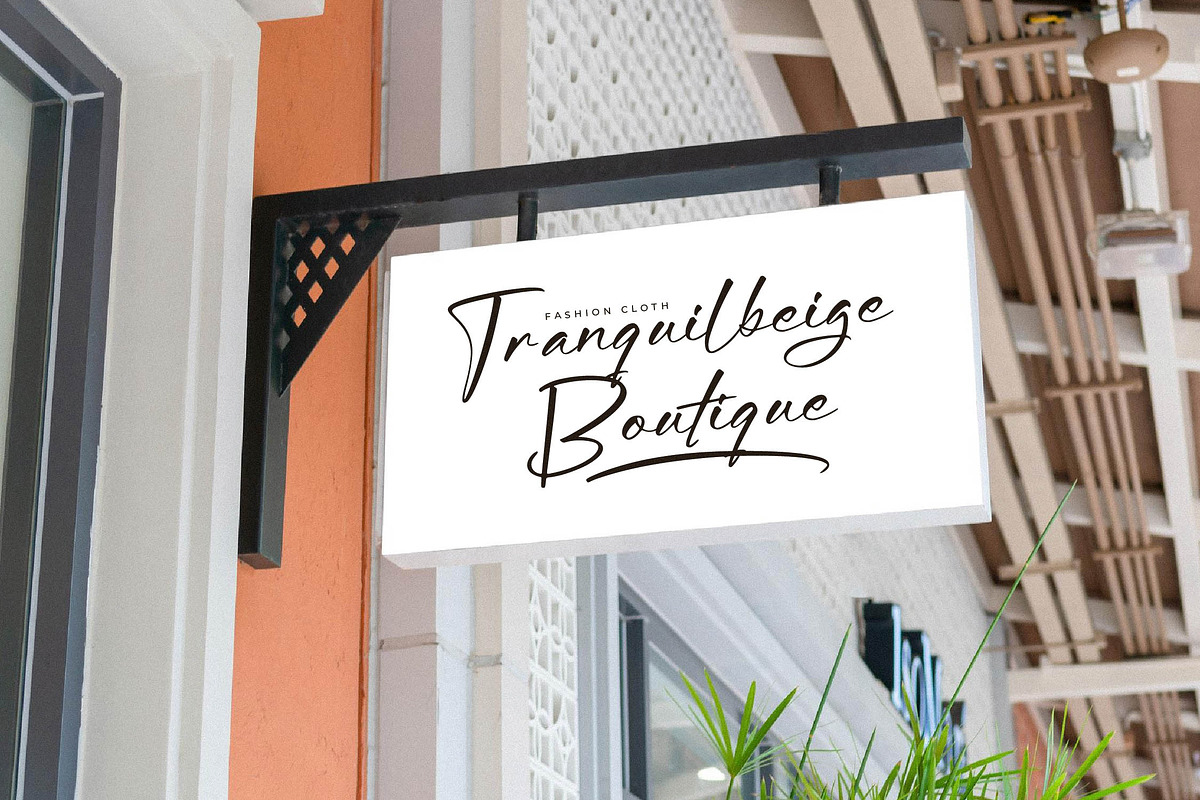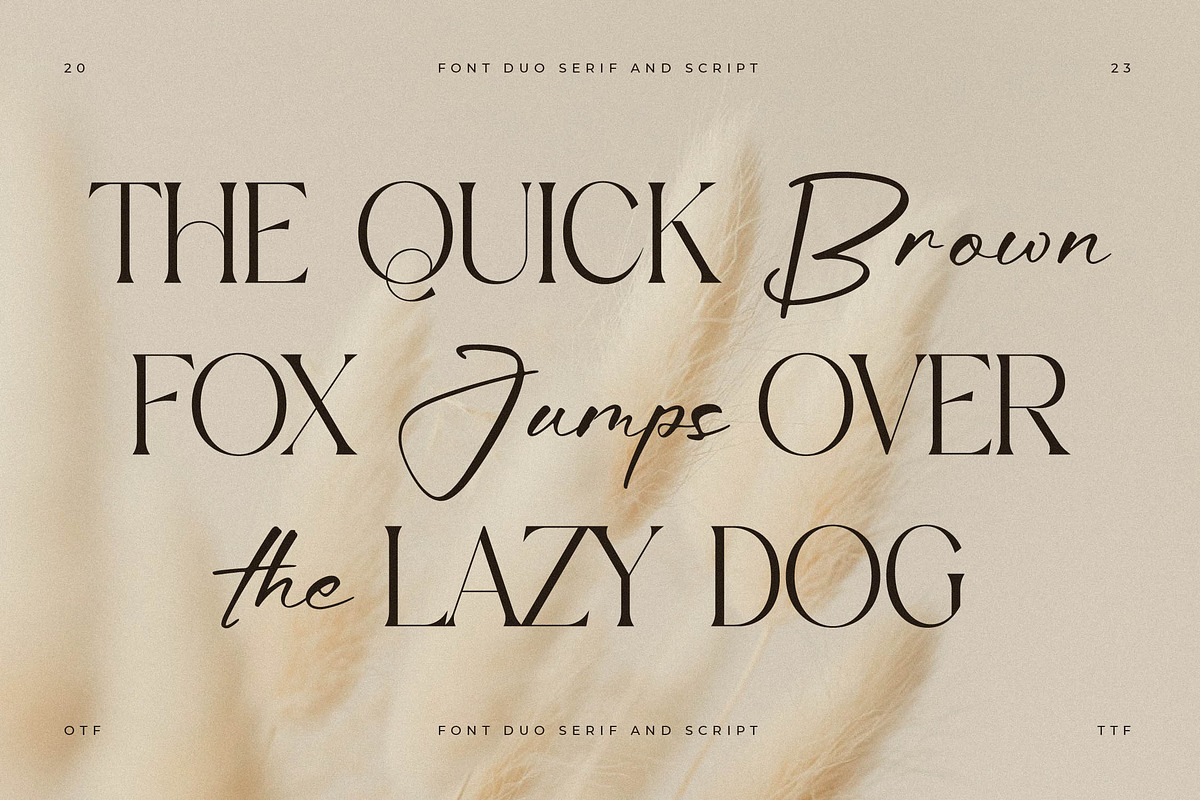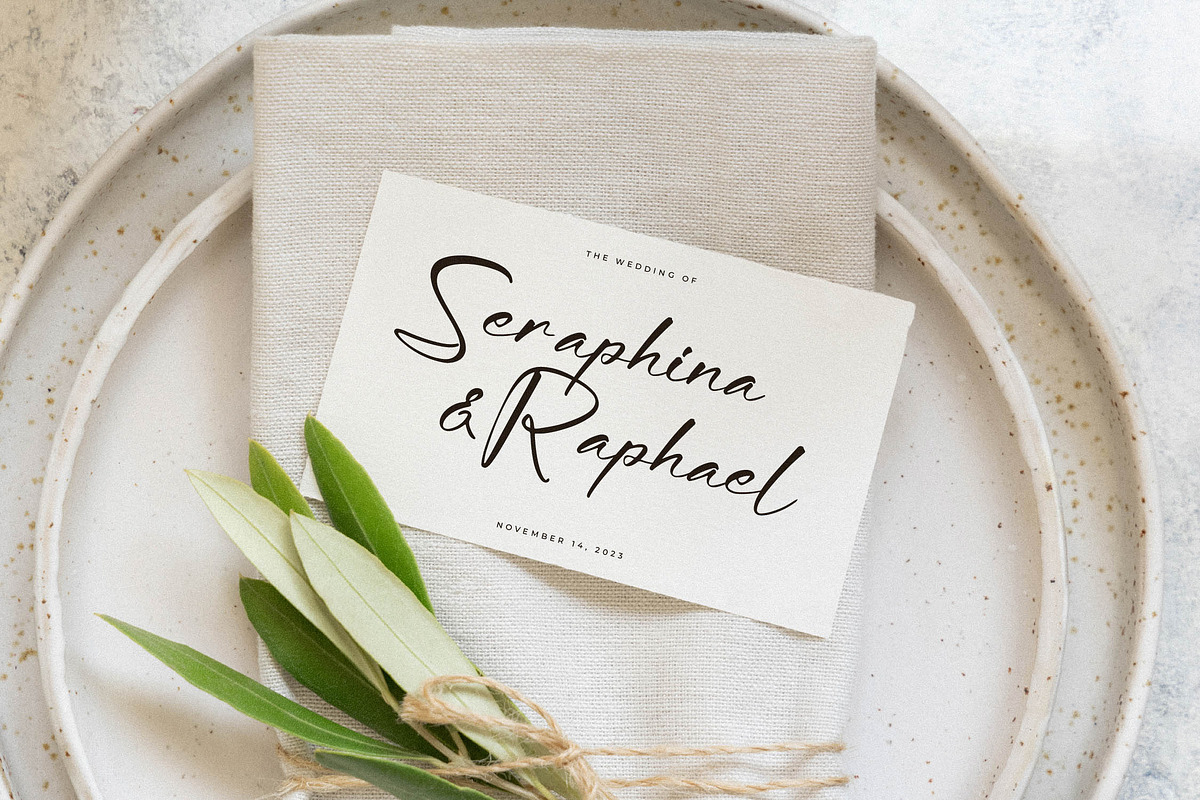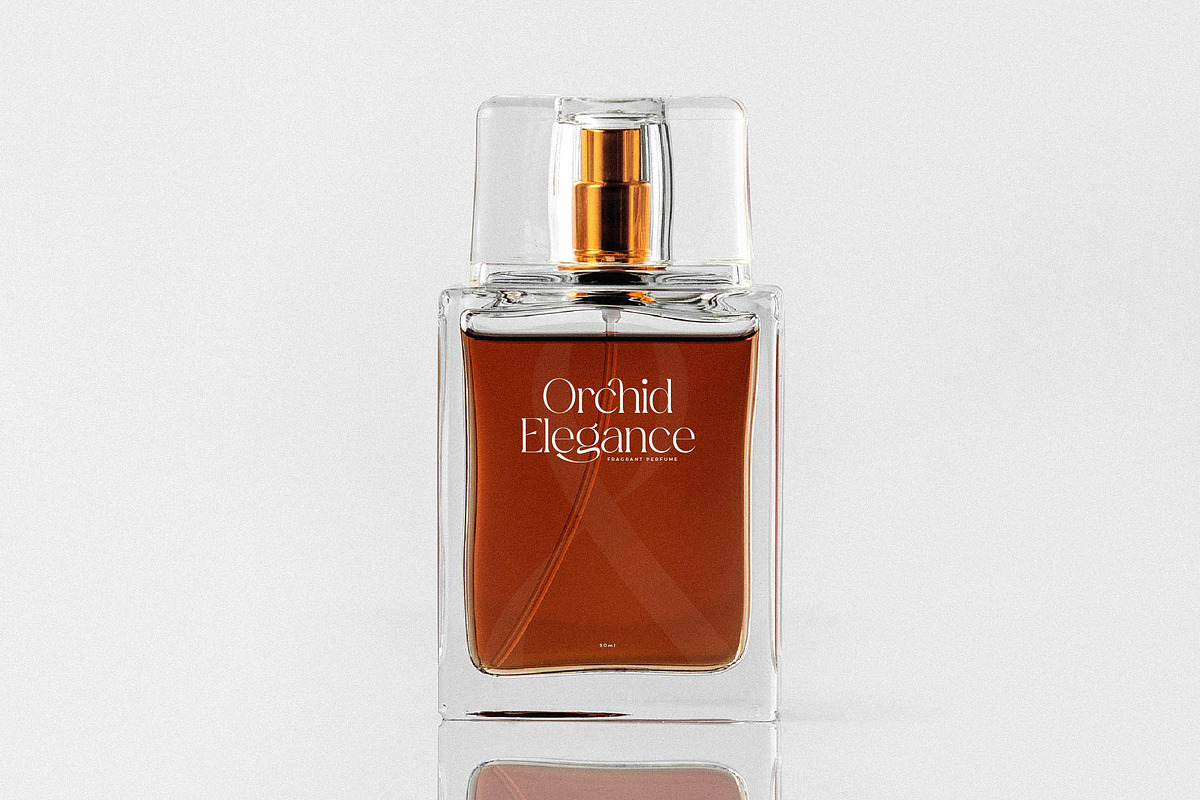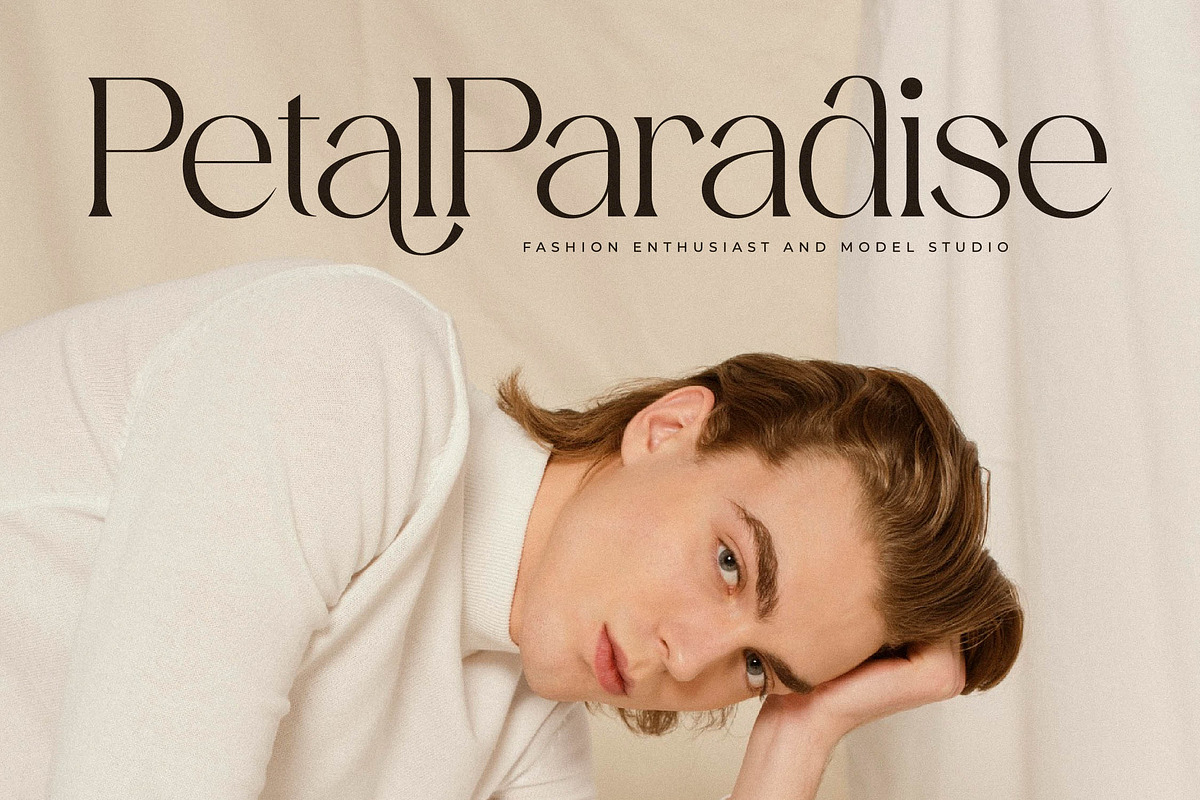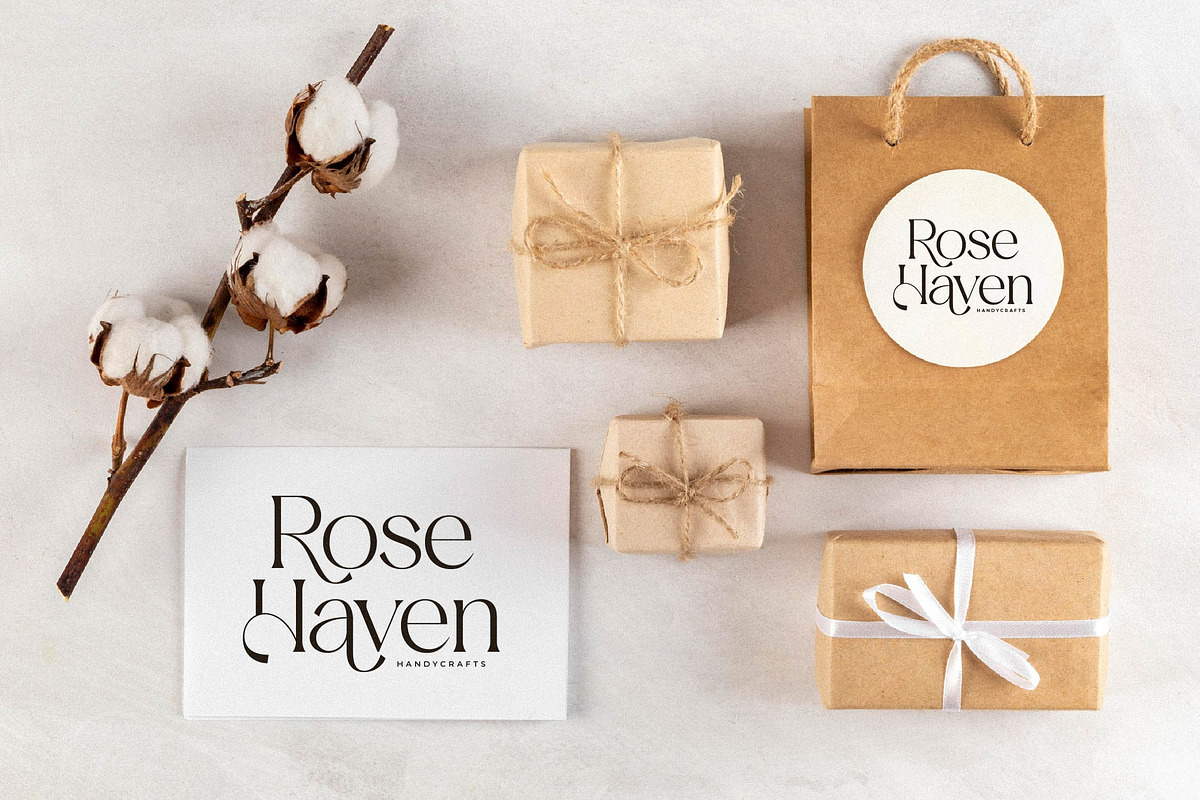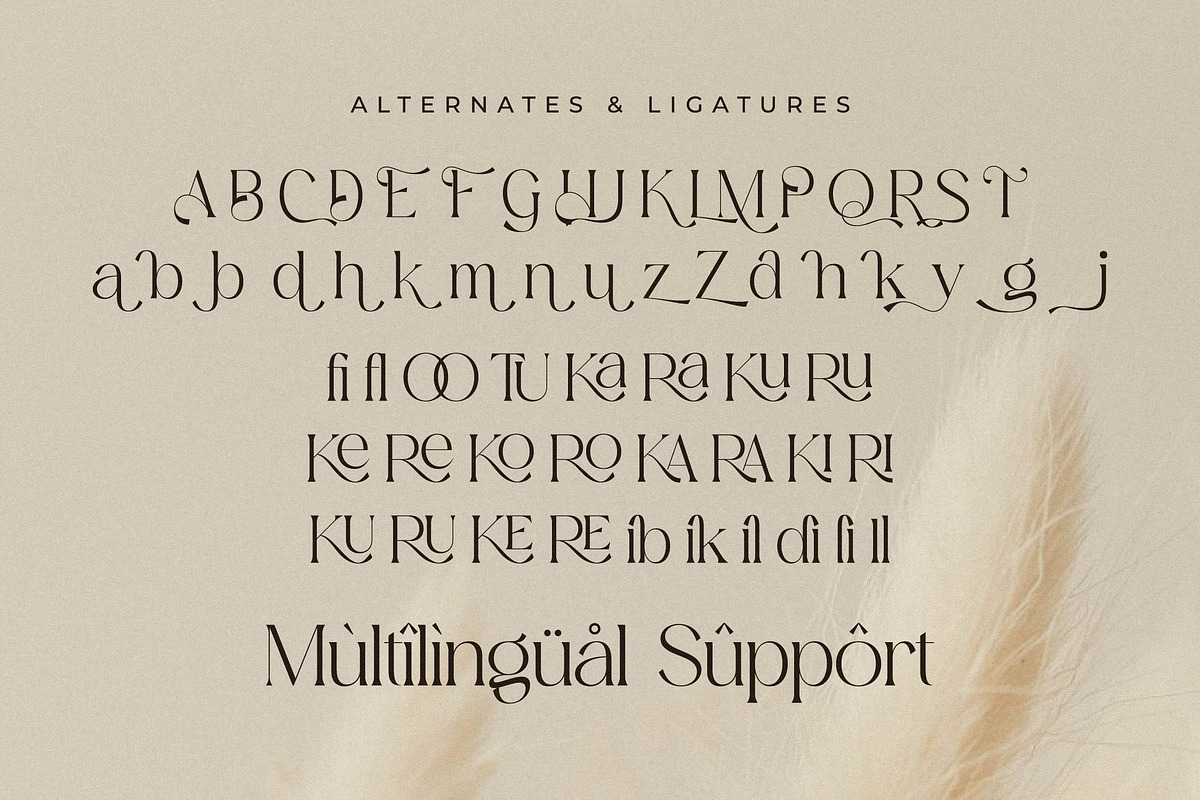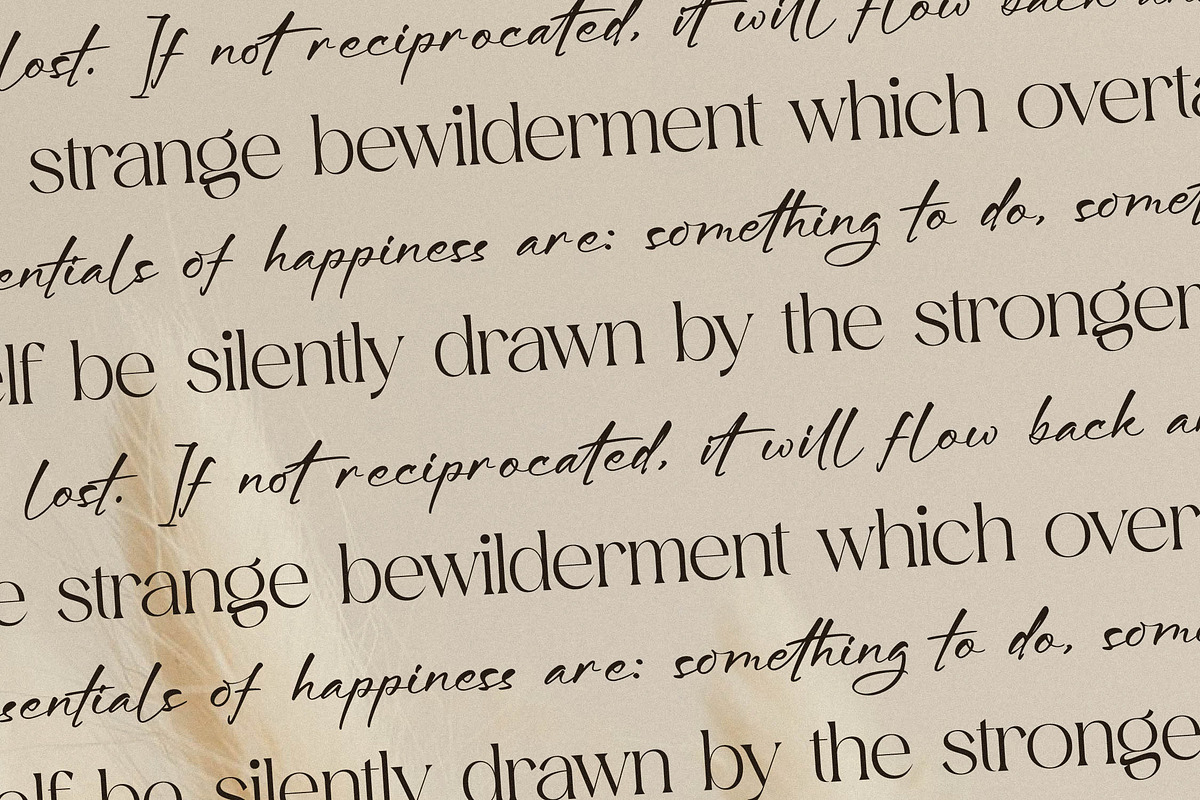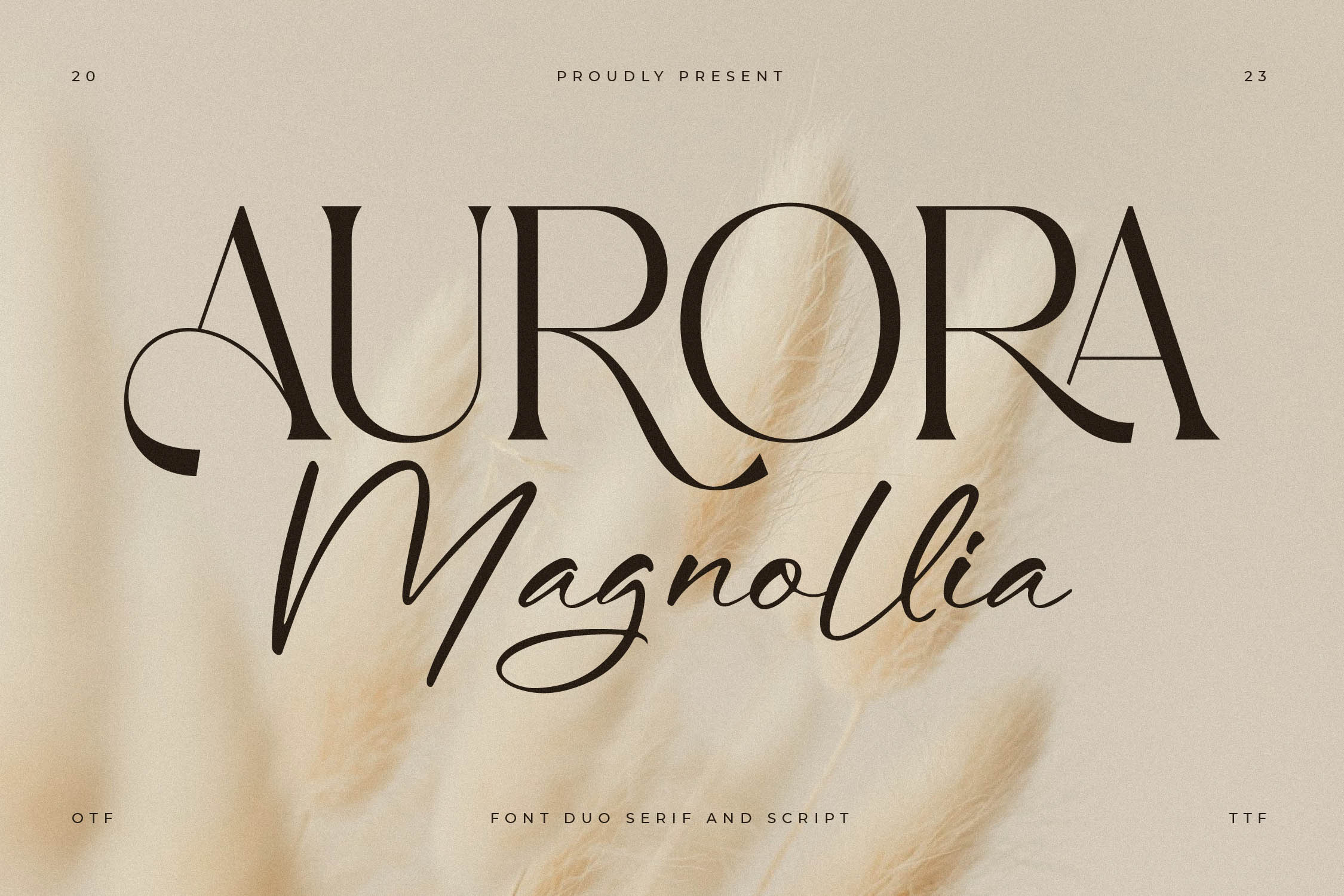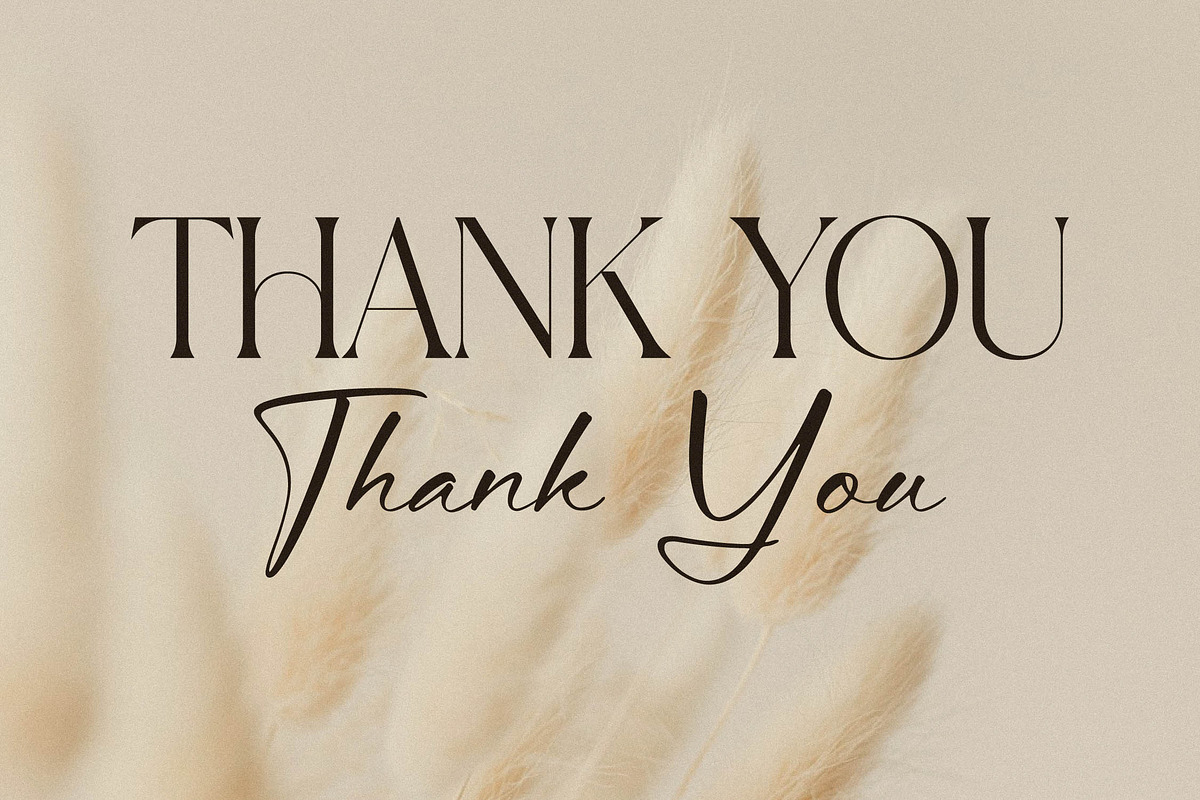
Aurora Magnollia Font Duo
Proudly present Aurora Magnollia Font Duo , created by Storytype, A serif and script typeface that has own unique style & modern look. This typeface is perfect for an elegant & luxury logo, book or movie title design, fashion brand, magazine, clothes, lettering, quotes, and so much more.